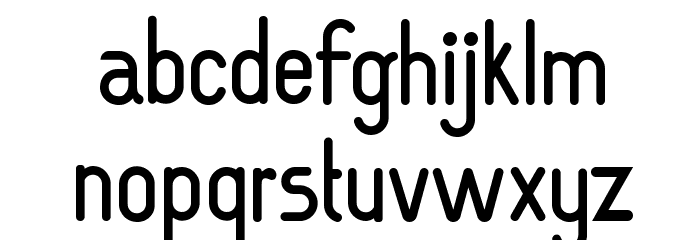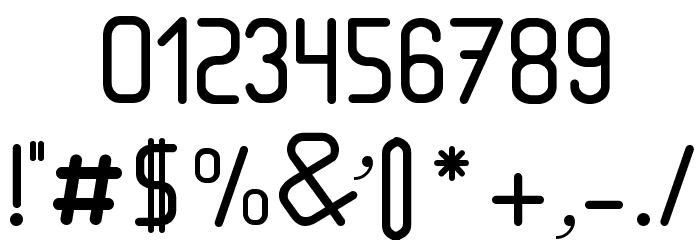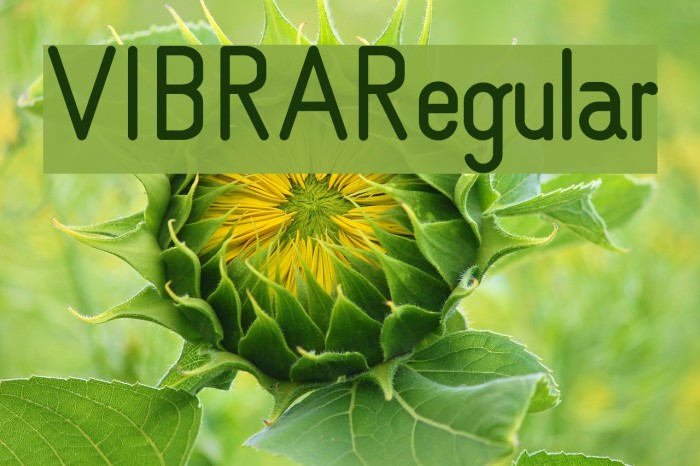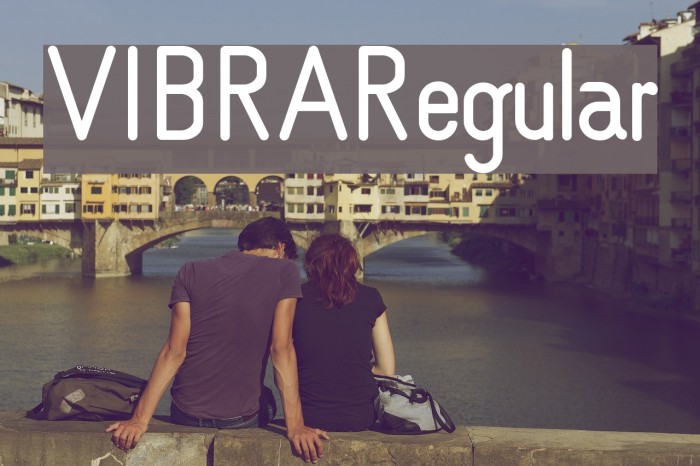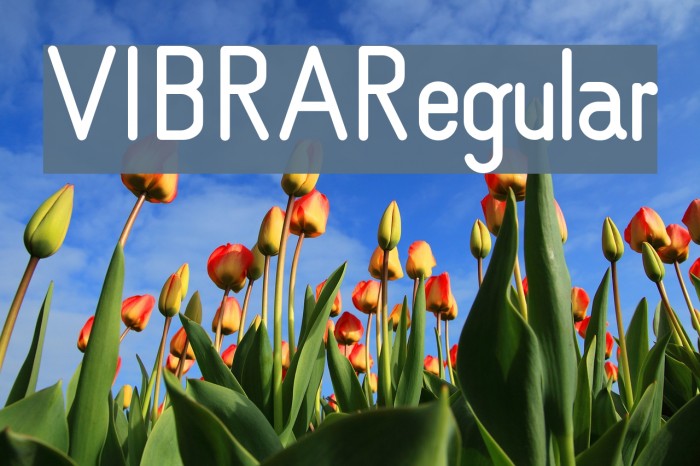
VIBRA Regular Font
This font features a modern, geometric design with clean lines and a uniform stroke width. The characters are slightly rounded, giving it a friendly and approachable feel. The uppercase letters are tall and narrow, while the lowercase letters maintain a consistent height, creating a harmonious balance. The numerals are distinct and easy to read, making them suitable for various applications. Special characters are well-integrated, maintaining the overall aesthetic of the font. Its simplicity and clarity make it versatile for both digital and print media.
A modern, geometric font with clean lines and a friendly appearance.